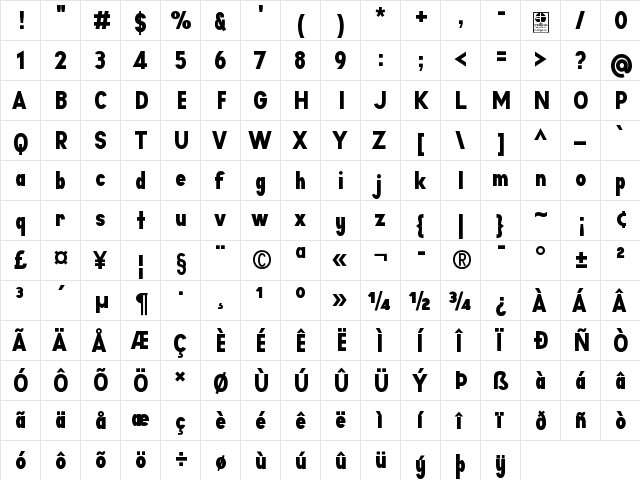
Aprikas Black Demo Regular
Design Context for Aprikas Black Demo Typeface
Aprikas Black Demo offers clean, dependable letterforms without strong stylistic allegiance, making it a practical choice for designers who need flexibility.